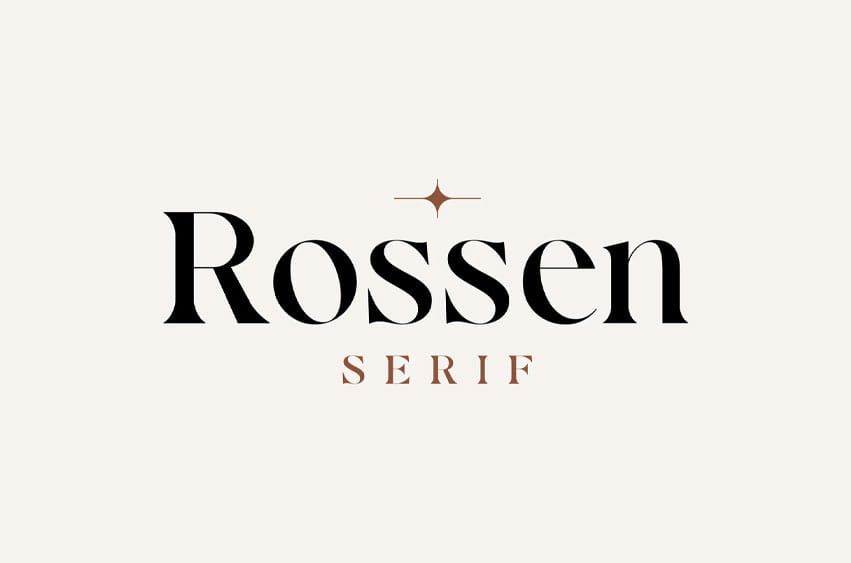
Rossen Font Serif is a carefully crafted serif typeface that exudes elegance, sophistication, and premium quality. With its clean lines, graceful curves, and classic letterforms, this font was designed to elevate your work with a luxurious touch.
Ideal for a wide range of formal and stylish applications such as logos, headlines, titles, invitations, product labels, magazines, books, packaging, makeup lines, stationery, greeting/wedding cards, and high-end advertising, Rossen Serif brings timeless beauty and refinement to every project.
- Elegant and high-contrast serif design
- Perfect for both editorial and branding needs
- Impeccably crafted for a luxurious, polished look
- Works beautifully across print and digital platforms
Elevate your design aesthetic with Rossen Serif, a timeless typeface made for statements that matter.
Rossen Font Preview